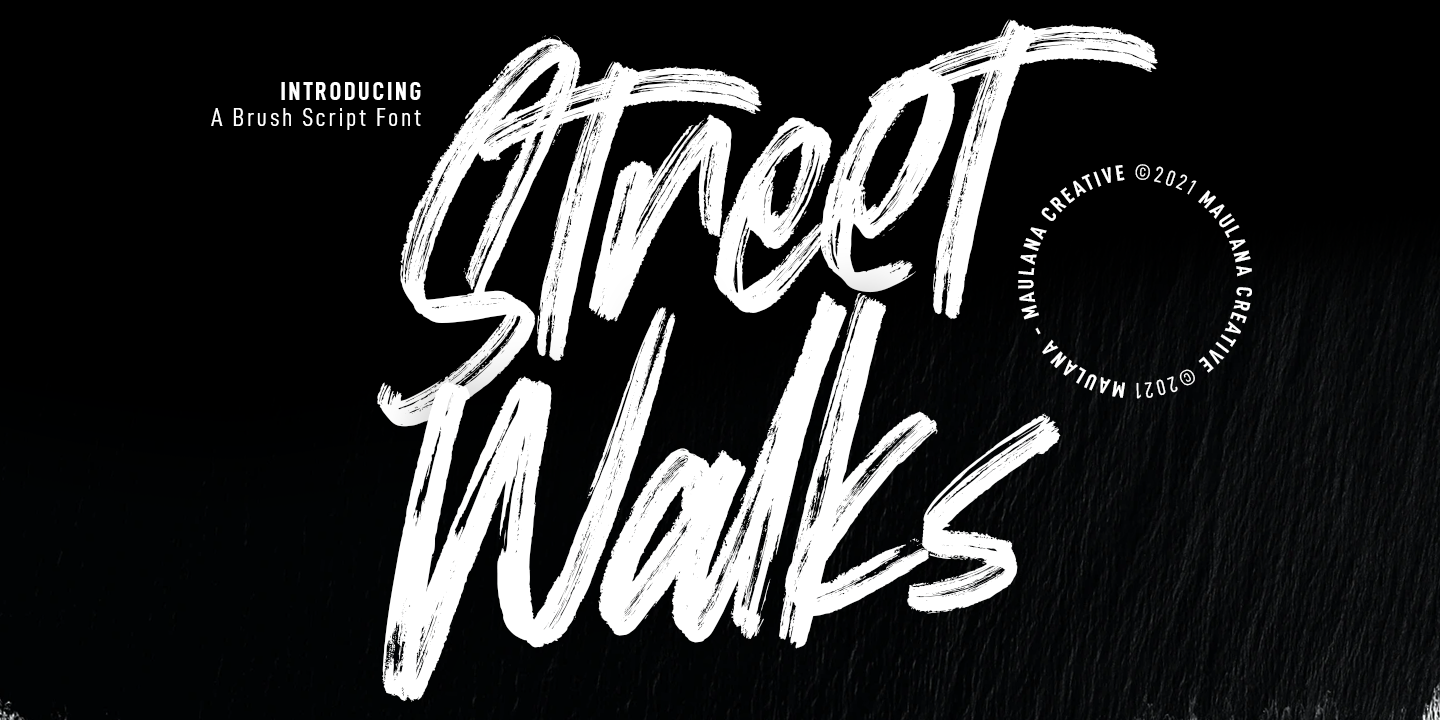
The Street Walks Font is an excellent choice for projects that aim to evoke a raw, urban, and authentically handcrafted aesthetic with a strong sense of street art or a dynamic, on-the-go vibe. It’s perfectly suited for streetwear branding, hip-hop album art, graffiti-inspired designs, event posters for music or urban culture festivals, social media graphics with a bold personality, and any design that benefits from a dynamic, expressive, and unrefined typeface. Its gritty and confident character makes it ideal for conveying a sense of rebellion, creativity, and vibrant street culture.
What makes Street Walks Font so exciting is its inherent ability to infuse text with a powerful, hand-painted or hand-drawn intensity, mimicking the spontaneous marks found in urban environments. It often features bold, irregular strokes, expressive textures, and an unapologetically raw quality, giving your words an immediate sense of spontaneous artistry and urban authenticity. This font isn't just about reading; it's about feeling the pulse and energy of the city streets, making your designs feel both unique and deeply impactful. It excels at adding an air of understated cool and artistic flair, ensuring your messages stand out with a truly distinguished and memorable character. The "Street Walks Font Free Download" also makes it accessible for test projects. Its natural variations emulate genuine brushwork or marker strokes, making each application feel custom-made.
The Street Walks Font family typically focuses on variations that enhance its handcrafted and expressive nature. You will generally find a strong regular style that embodies its core energetic aesthetic. Given its specific design purpose, extensive weight variations are less common, but some versions might offer subtle stylistic alternates, a rich set of ligatures, or even different textural treatments (e.g., cleaner or rougher versions) to provide more expressive flourishes and further enhance its bespoke feel. The emphasis is on providing a consistent yet visually rich identity that resonates with its artistic and urban inspirations.
Whether you're designing a dynamic apparel line, crafting a unique brand identity for a creative studio, or creating visually stunning marketing materials for a cultural event, the Street Walks Font Free Download offers an indispensable tool. Its artistic appeal and undeniable charm make it a premier choice for any project that requires a typeface of exceptional energy, authenticity, and distinctive urban beauty.